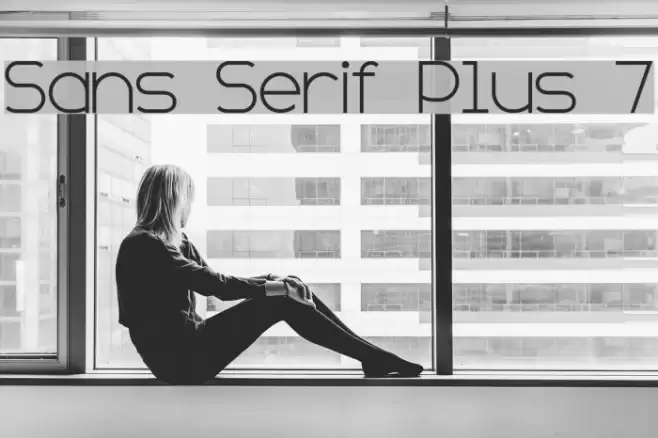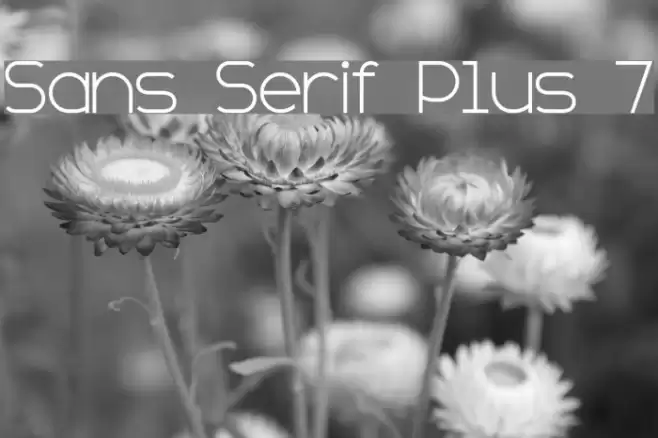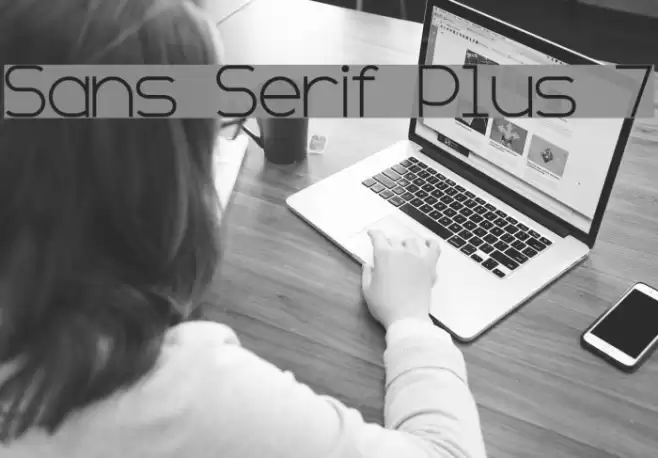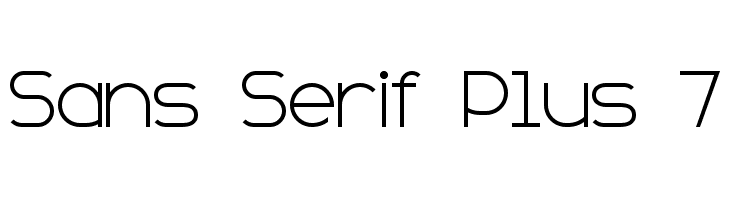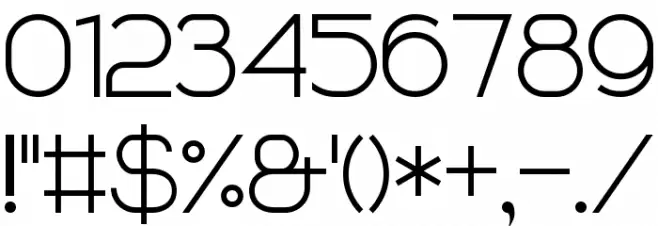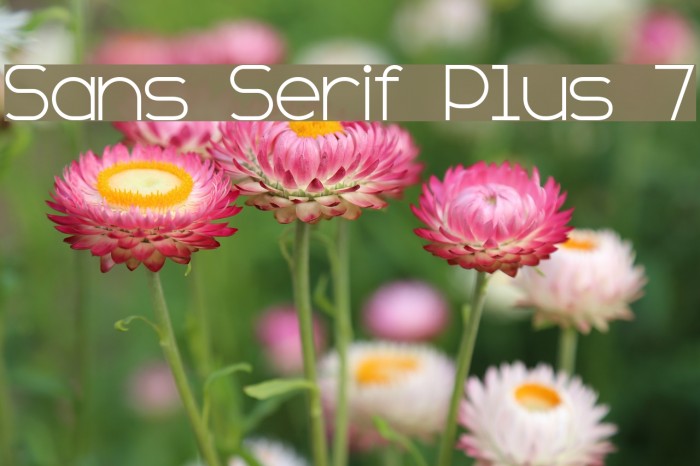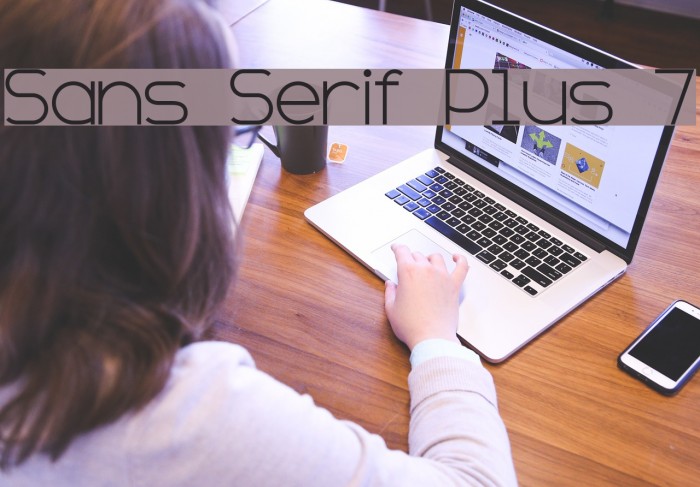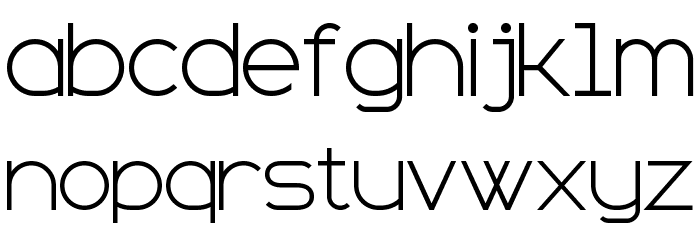
Sans Serif Plus 7 Font
Sans Serif Plus 7 Description
This font features a clean and modern sans-serif design, characterized by its geometric shapes and uniform stroke widths. The letters are crafted with precision, offering a sleek and contemporary look. The uppercase and lowercase letters maintain a consistent style, with rounded edges that soften the overall appearance. The numerals are clear and easy to read, making them suitable for various applications. Special characters are included, providing versatility for different uses. The font's simplicity and elegance make it ideal for projects that require a modern and professional aesthetic.
A clean, geometric sans-serif font with a modern and sleek design from Uncategorized fonts.
- Proposed Projects: Ideal for branding, web design, advertising, and editorial projects that require a modern and professional look.